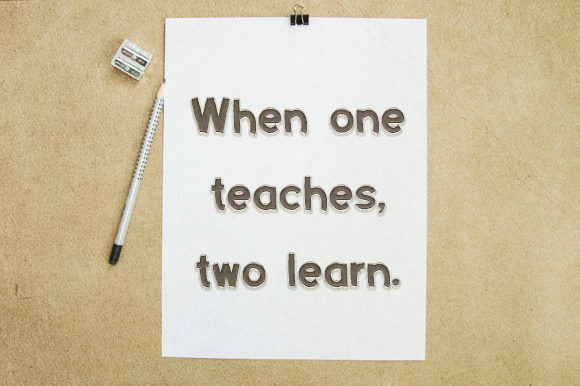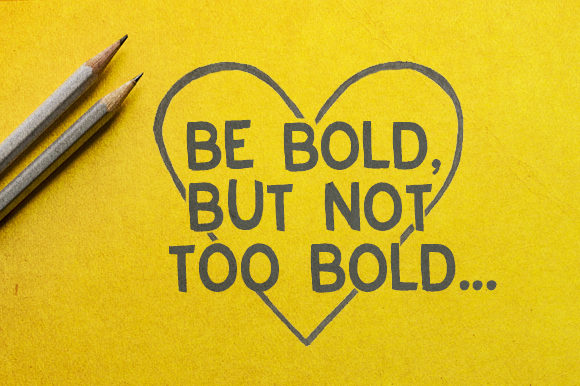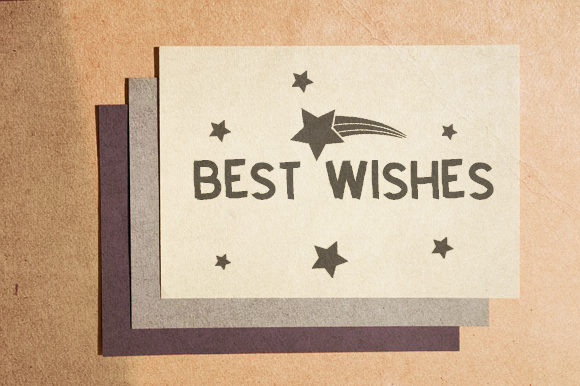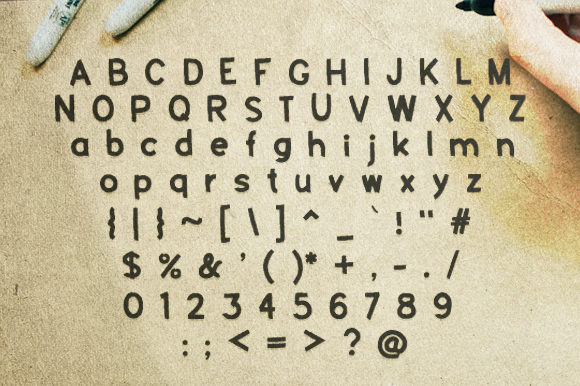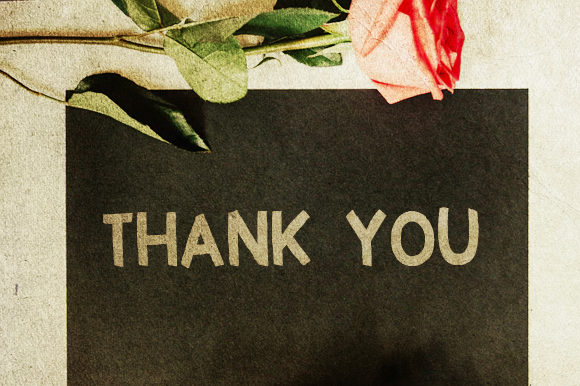
Introducing Boldizsar: The Bold and Charming Sans Serif Font
Are you tired of using the same old fonts in your designs? Look no further than Boldizsar, a bold and charming sans serif font that can be used for a wide variety of design ideas! In this article, we’ll take a closer look at the Boldizsar font, its features, and how you can use it to elevate your designs.
What is Boldizsar?
Boldizsar is a sans serif font, which means it doesn’t have the small lines or flourishes at the ends of the letters. This gives it a clean and modern look that’s perfect for designs that need to be bold and eye-catching. The font is designed to be highly legible, making it perfect for use in a variety of contexts, from headings and titles to body text.
Features of Boldizsar
So, what makes Boldizsar such a great font? Here are just a few of its key features:
- Bold and charming design: The Boldizsar font has a bold and charming design that’s sure to grab attention. Its clean lines and simple shapes make it easy to read and understand.
- Highly legible: The font is designed to be highly legible, even at small sizes. This makes it perfect for use in a variety of contexts, from headings and titles to body text.
- Versatile: Boldizsar is a versatile font that can be used for a wide variety of design ideas. Whether you’re creating a logo, a brochure, or a website, this font is sure to make your design stand out.
How to Use Boldizsar in Your Designs
Now that we’ve covered the features of Boldizsar, let’s take a look at how you can use it in your designs. Here are a few ideas to get you started:
- Headings and titles: Use Boldizsar to create bold and eye-catching headings and titles. Its clean lines and simple shapes make it perfect for use in designs where you want to grab attention.
- Logos and branding: The Boldizsar font is perfect for use in logos and branding. Its bold and charming design makes it easy to recognize and remember.
- Brochures and flyers: Use Boldizsar to create eye-catching brochures and flyers. Its highly legible design makes it perfect for use in body text, and its bold design makes it perfect for use in headings and titles.
- Websites: The Boldizsar font is also perfect for use on websites. Its clean lines and simple shapes make it easy to read on a variety of devices, and its bold design makes it perfect for use in headings and titles.
Tips for Getting the Most Out of Boldizsar
Here are a few tips for getting the most out of the Boldizsar font:
- Experiment with different sizes: Don’t be afraid to experiment with different sizes of the Boldizsar font. Its highly legible design makes it perfect for use at a variety of sizes, from small body text to large headings.
- Pair it with other fonts: Boldizsar pairs well with a variety of other fonts. Try pairing it with a serif font for a classic look, or with a script font for a more elegant look.
- Use it consistently: To get the most out of the Boldizsar font, use it consistently throughout your design. This will help to create a cohesive look and make your design more recognizable.
In conclusion, Boldizsar is a bold and charming sans serif font that can be used for a wide variety of design ideas. Its highly legible design, versatile nature, and ease of use make it perfect for designers and crafters who want to create eye-catching designs. Whether you’re creating a logo, a brochure, or a website, the Boldizsar font is sure to make your design stand out. So why not give it a try and see what you can create?